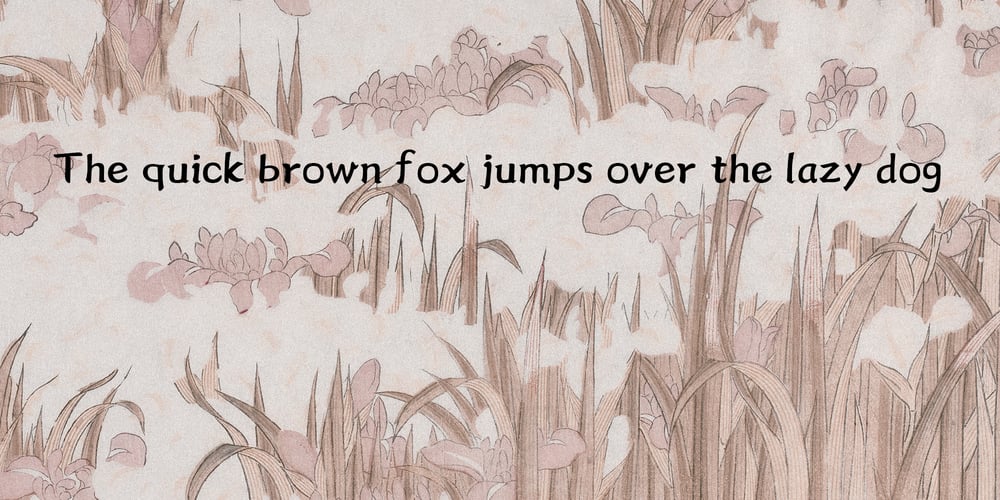
Ramega Kai
Ramega Kai font
Ramega Kai Font Family was designed by Apollo Zhang and published by Ramega. Ramega Kai contains 1 styles and family package options. Introducing a stunning new collection of Latin fonts inspired by the elegance of Chinese calligraphy!Immerse yourself in the harmonious fusion of cultures as this extraordinary handcrafted Latin font series captures the essence of China’s renowned Kai-ti style. Steeped in tradition yet infused with a modern twist, these fonts seamlessly bridge the gap between East and West, offering a unique visual experience.Each letter meticulously crafted with love and expertise, conveying a sense of grace and refinement. With their flowing curves and balanced strokes, these fonts breathe life into the English language, infusing it with an undeniable Eastern charm. Allow your words to dance across the page, effortlessly captivating readers with their timeless beauty.This extraordinary collection is not confined to mere words – it is an artistic expression, a celebration of heritage and innovation. Whether you’re designing a logo, creating artistic masterpieces, or presenting captivating content, these fonts will elevate your work to new heights of sophistication.Step into a world where East meets West, where the ancient art of calligraphy finds a harmonious home within the vibrant Latin script. Unleash your creativity and embark on a journey that transcends boundaries, as you explore the mesmerizing world of our new Latin font series inspired by China’s treasured Kai-ti style.